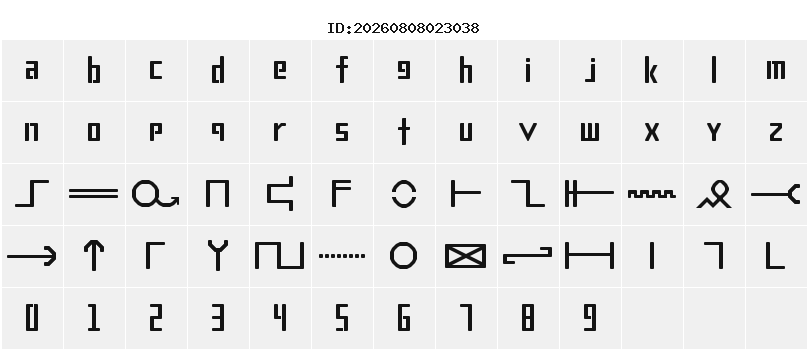
• Font Name: Proofreader
• Designer: dust01
About Proofreader.ttf
Proofreader.ttf is a modern, elegant sans-serif font designed for ultimate readability and visual harmony. Perfect for branding, headlines, web design, and print materials.